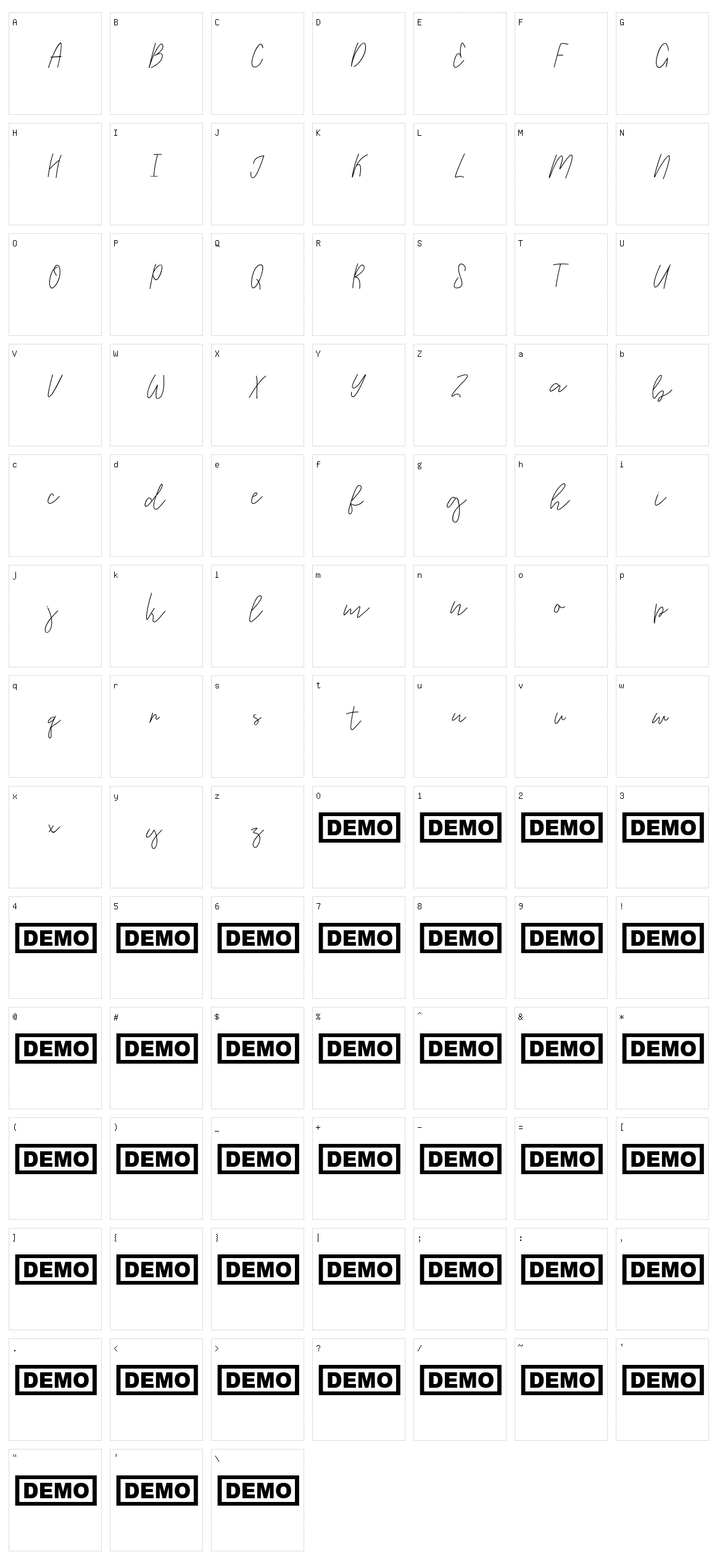
The free font Warm Memories is carefully designed by Mr. Typeman, showcasing a thoughtful balance of creativity and usability and falls under the Script font style. When you download the ZIP file, it contains only 8290.17 KB of font files, making it lightweight and quick to download. Please review the license details below to understand permitted usage and distribution rights. If license information is not available, we recommend using this font for personal projects only or contacting the author directly for commercial usage permissions.